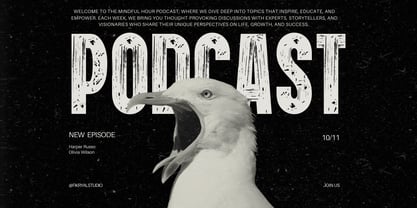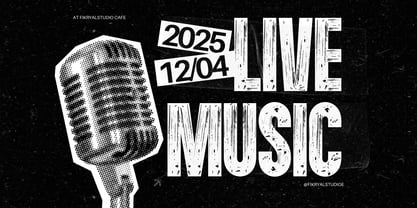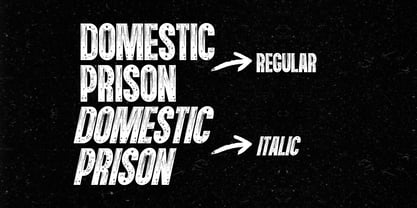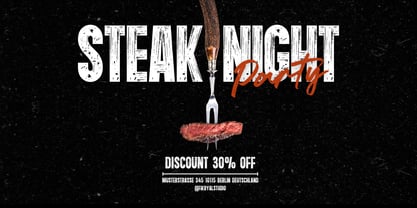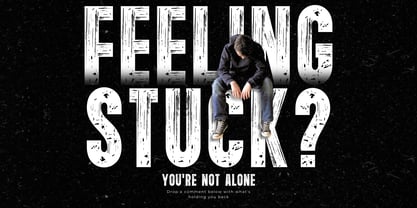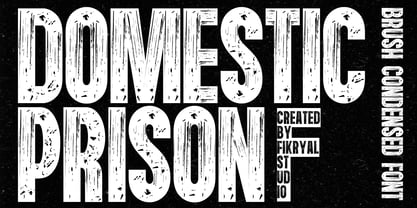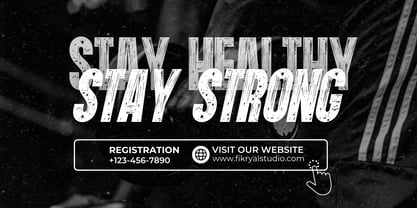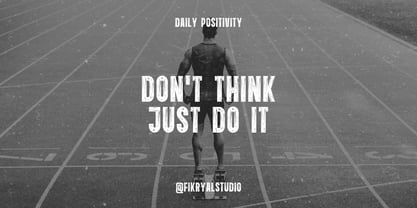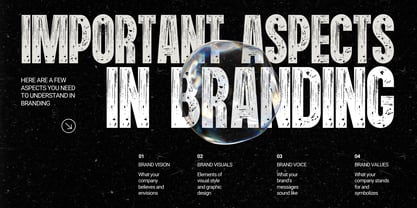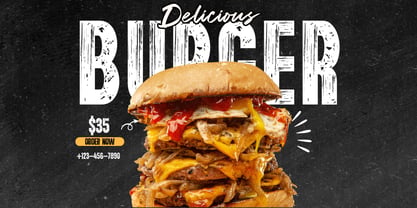
Domestic Prison
by Fikryal
The Domestic Prison Font Family was designed by Muhammad Fikry and published by Fikryal. Domestic Prison contains 2 styles and family package options. More about this family
Domestic Prison is a professionally crafted, all-caps condensed brush font with a distinct grunge aesthetic. Available in Regular and Italic styles, this font is designed for maximum impact, featuring bold and rugged strokes that bring a raw, authentic edge to any project.
Perfect for branding, editorial headlines, poster design, album artwork, and other creative applications, Domestic Prison stands out with its striking and expressive look. Its condensed structure ensures excellent readability while maintaining a compact and powerful presence.
Whether you’re crafting a modern design or adding an edgy touch, Domestic Prison is the ideal choice for merging artistic brushwork with professional versatility.
--Uppercase
Designers: Muhammad Fikry
Foundry: Fikryal